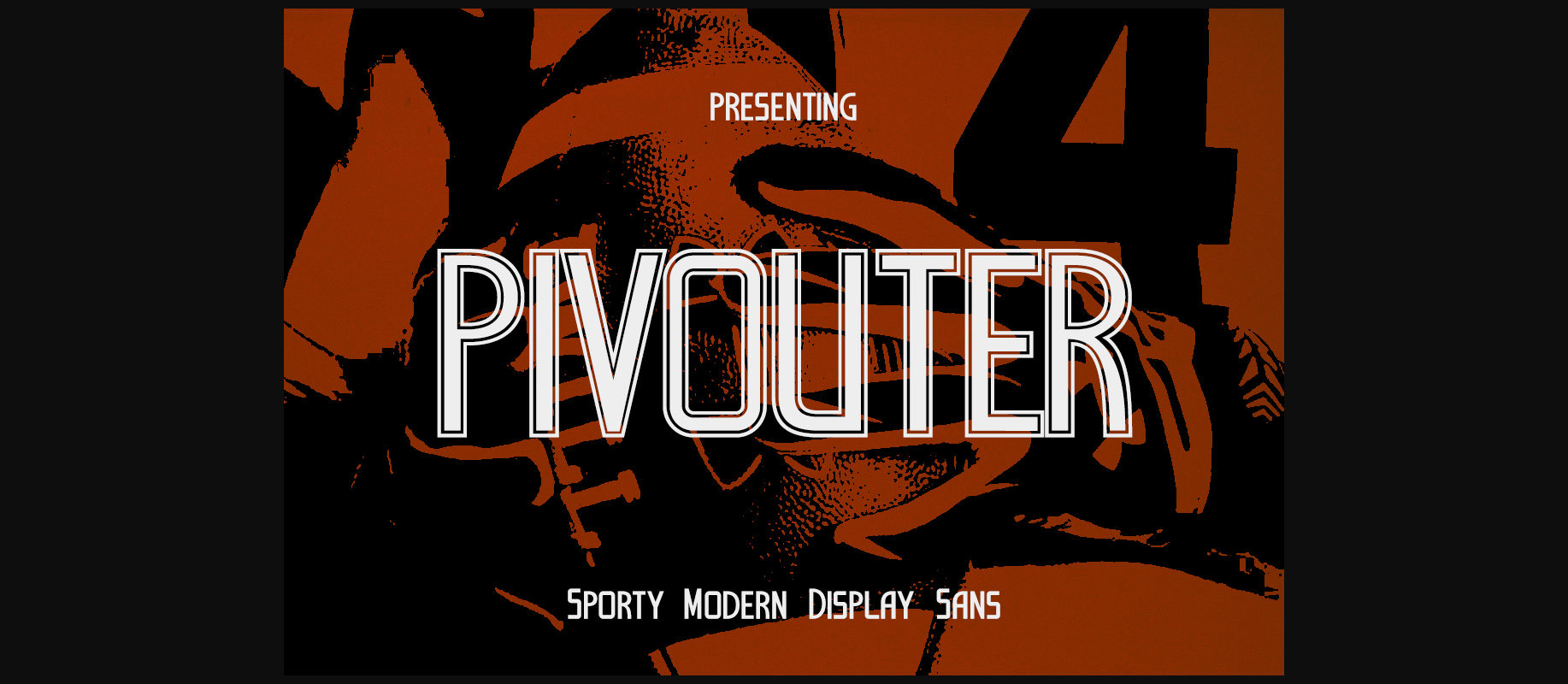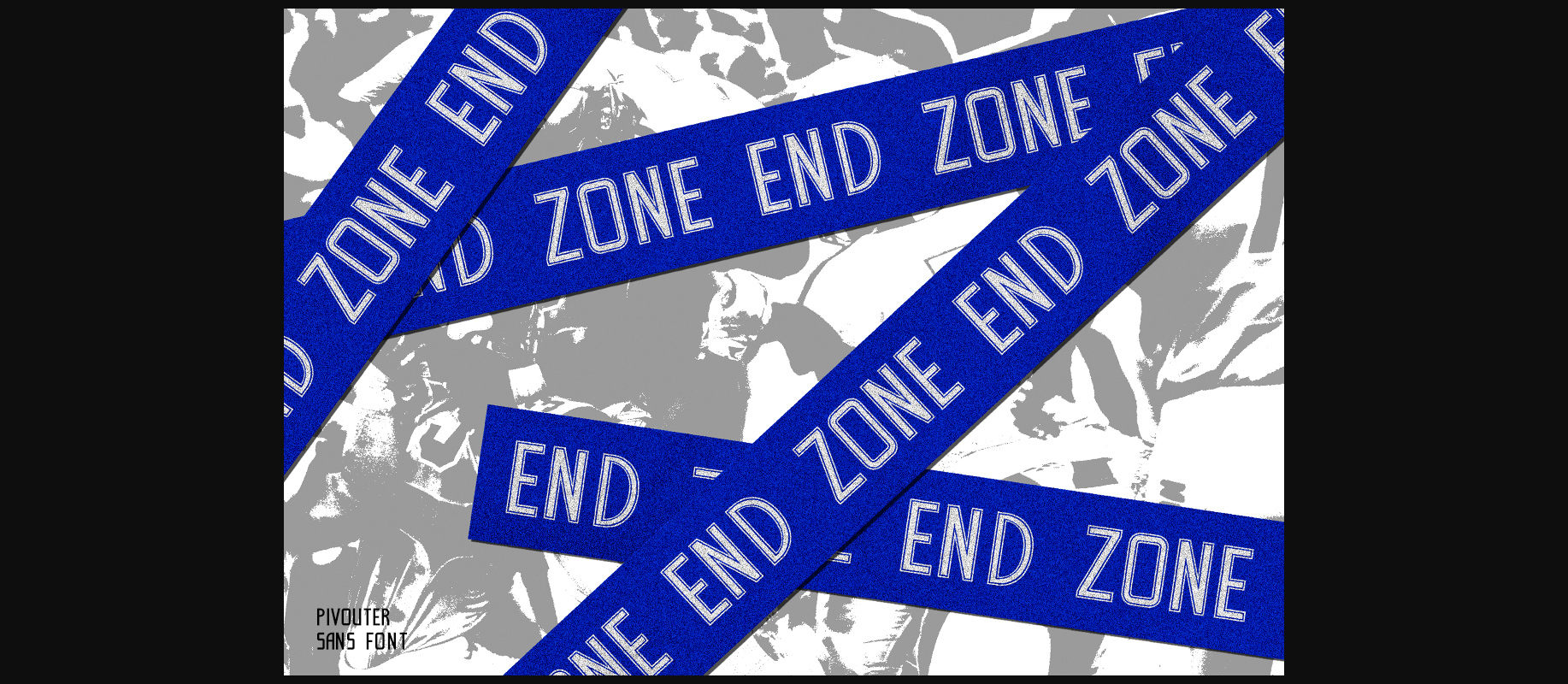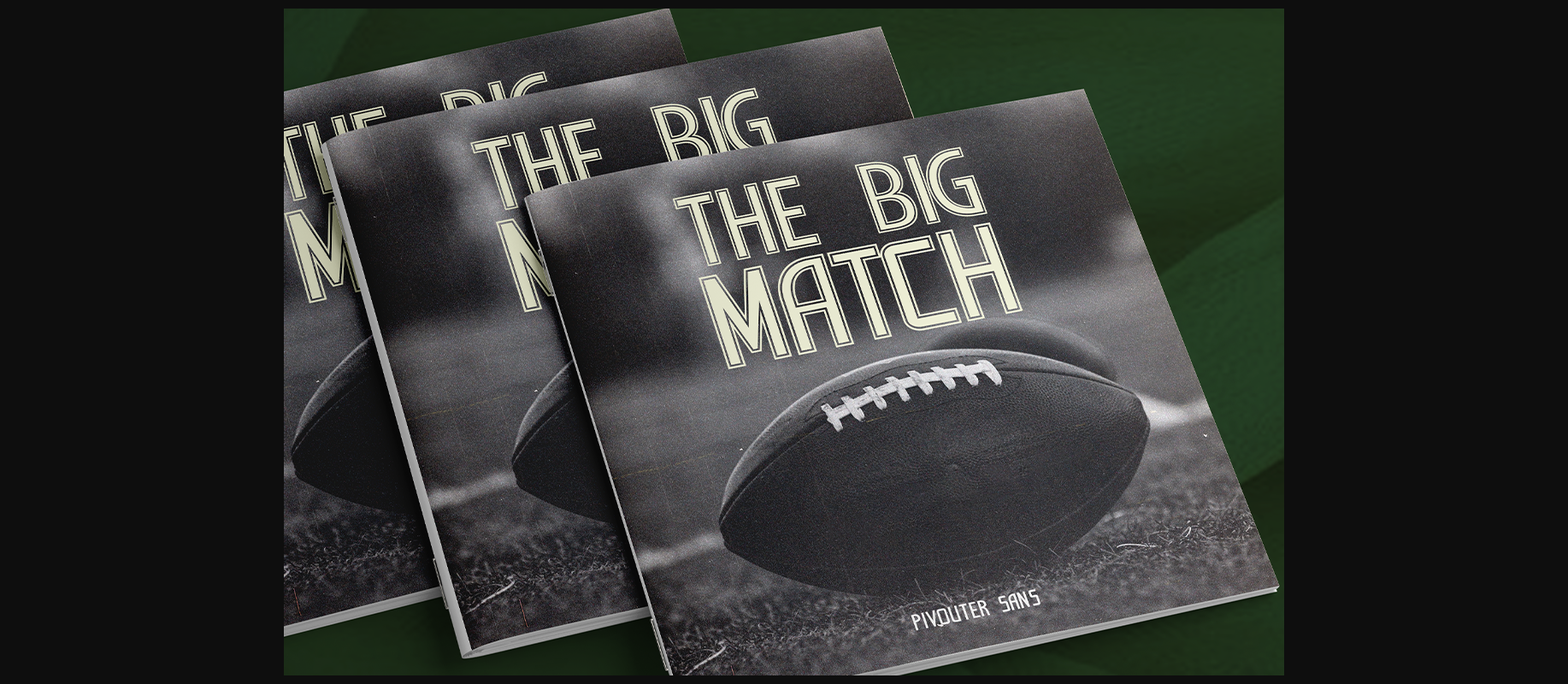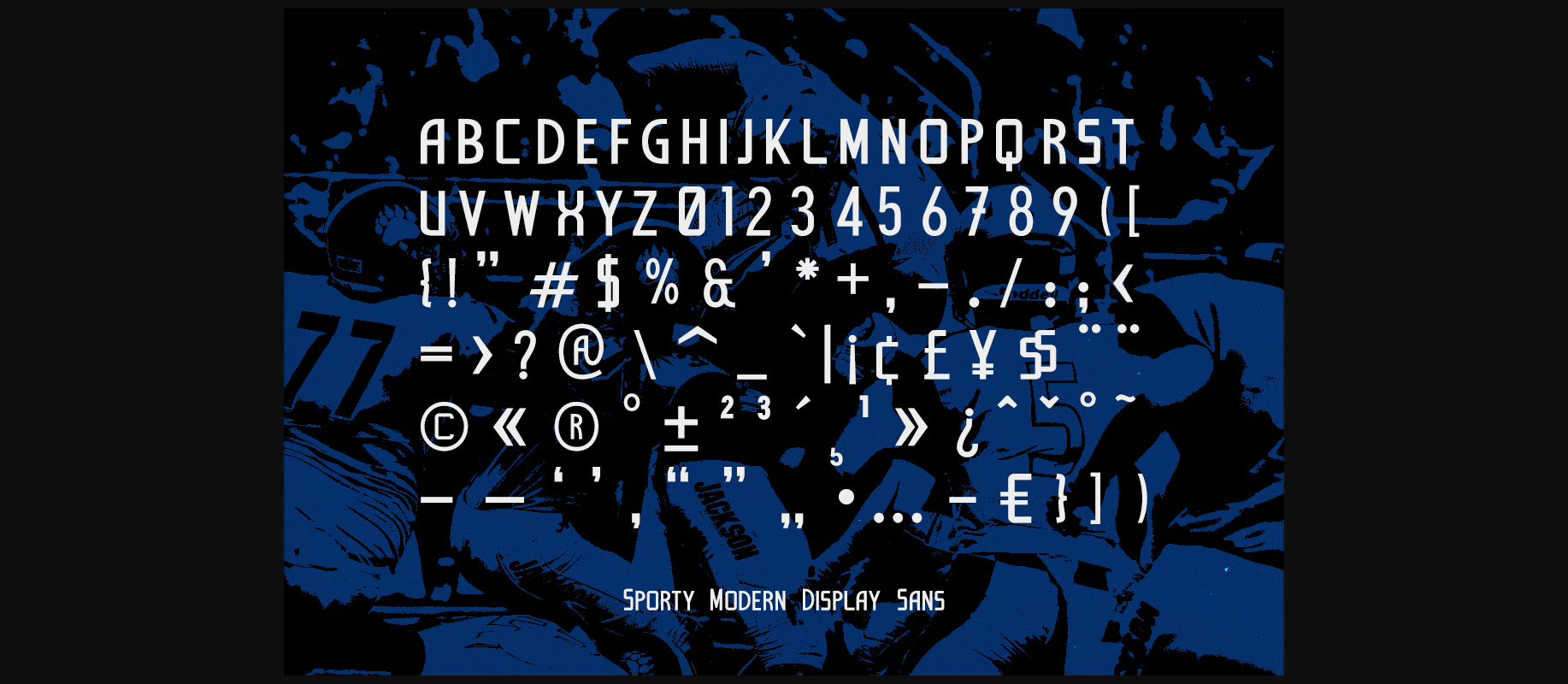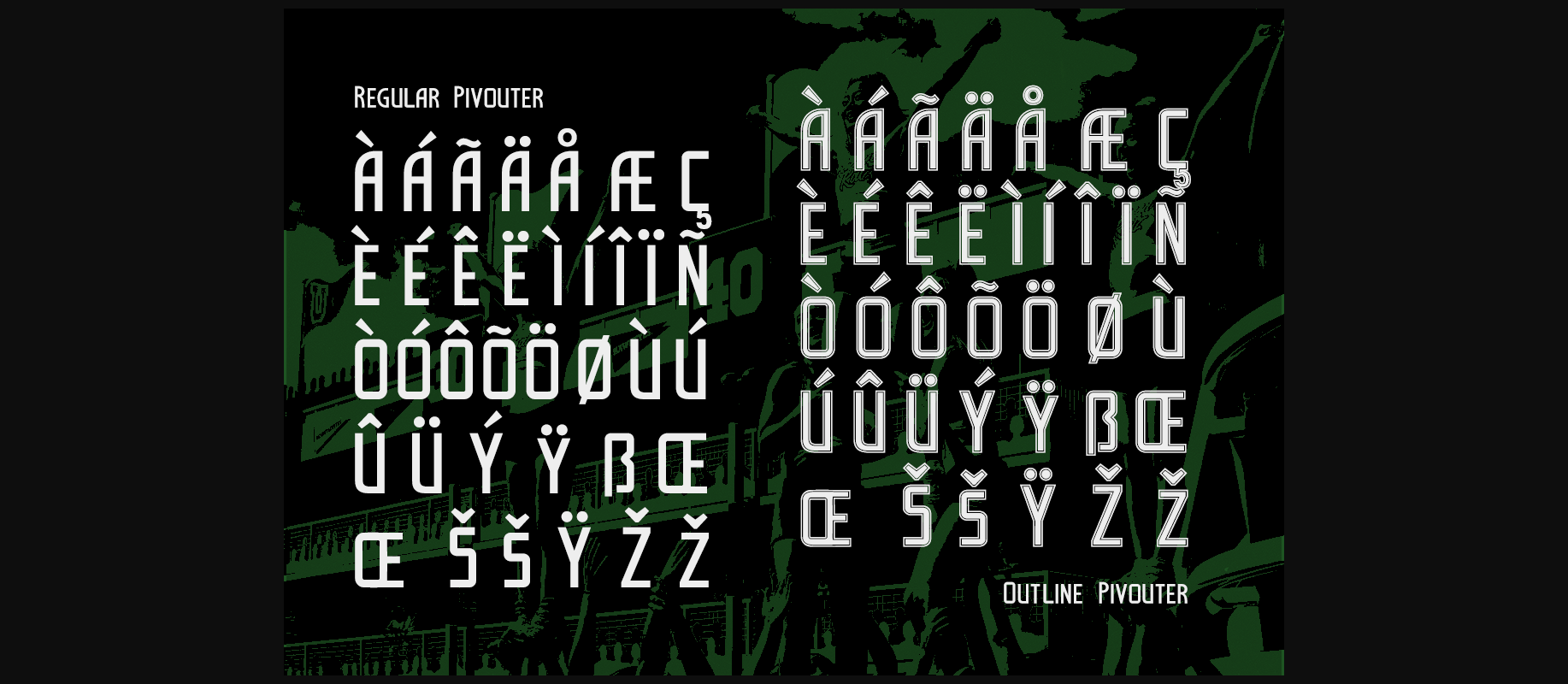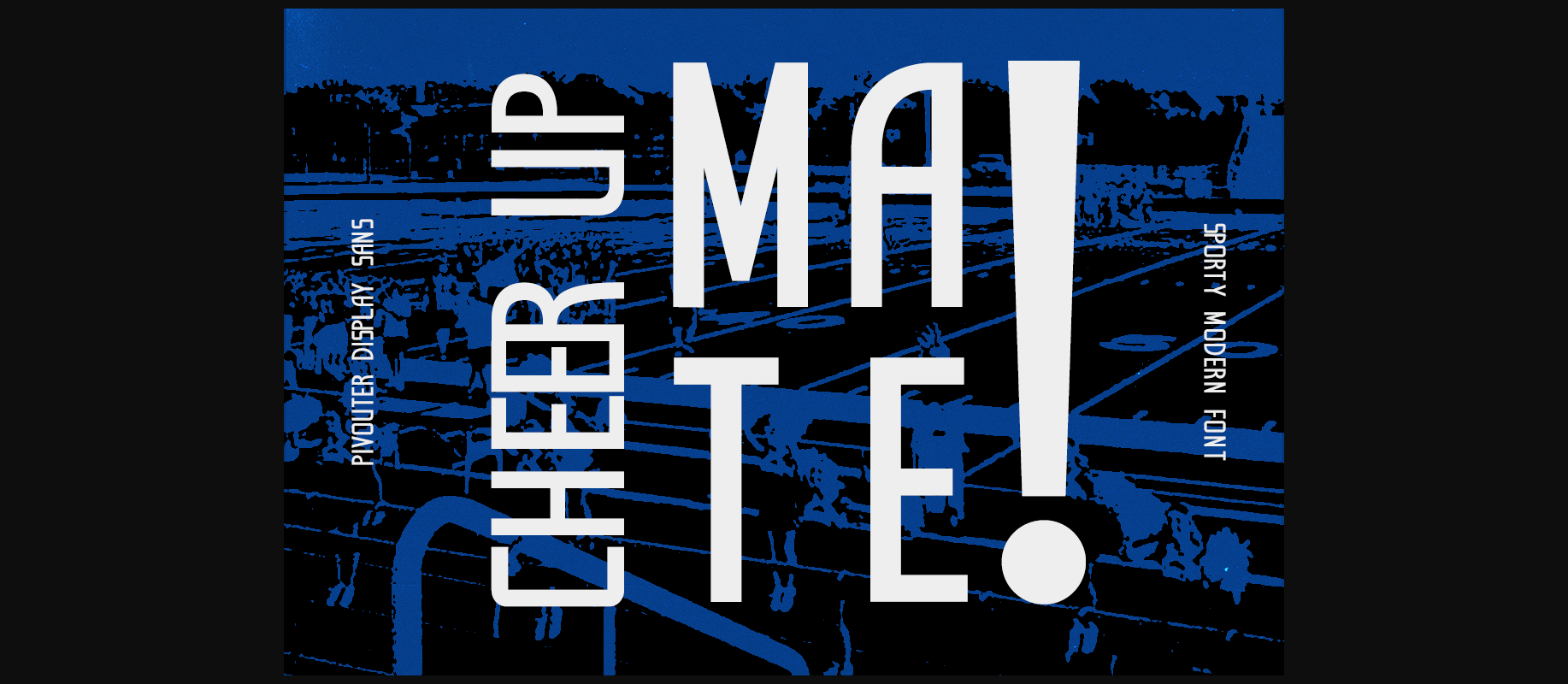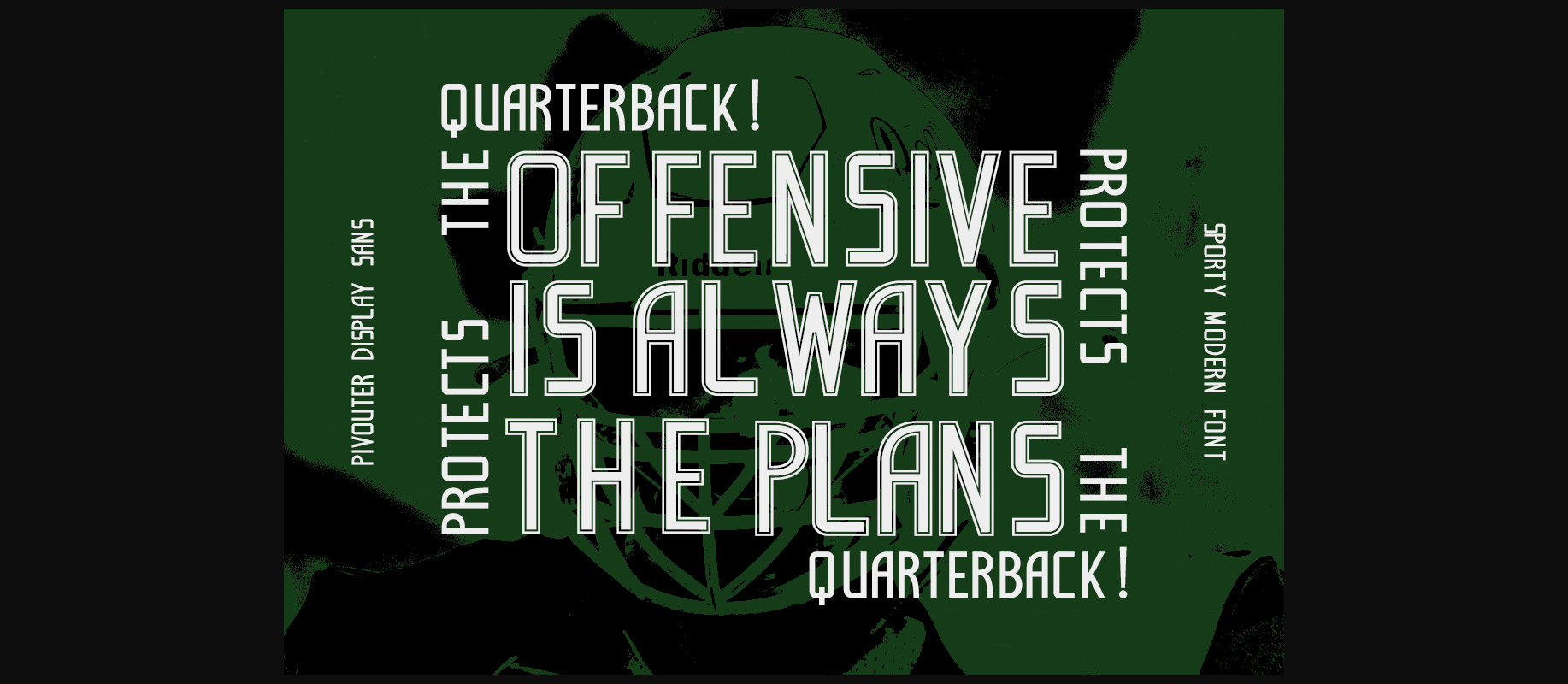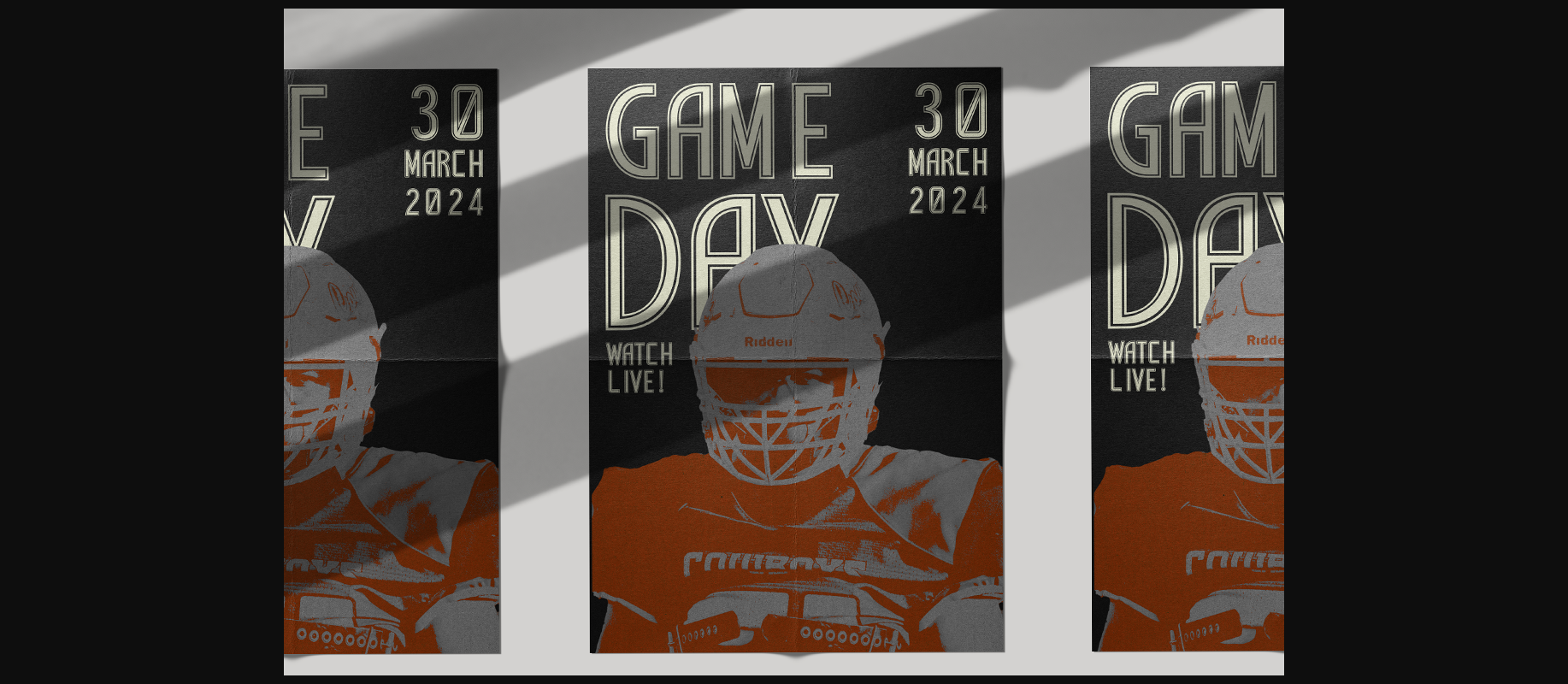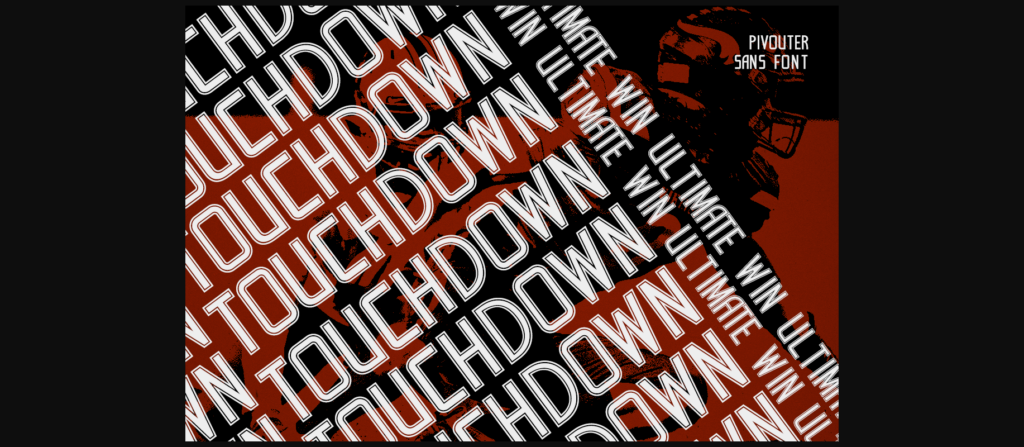
Pivouter Font
About Pivouter Font
Pivouter is a modern sans-serif font that effortlessly blends sporty flair with clean elegance. Its two distinct versions – regular and outlined stroke – offer versatility for a range of creative projects. Whether you’re designing a dynamic logo, a high-impact website, or an eye-catching poster, Pivotuer’s unique character will add a touch of contemporary energy with a hint of refined style.